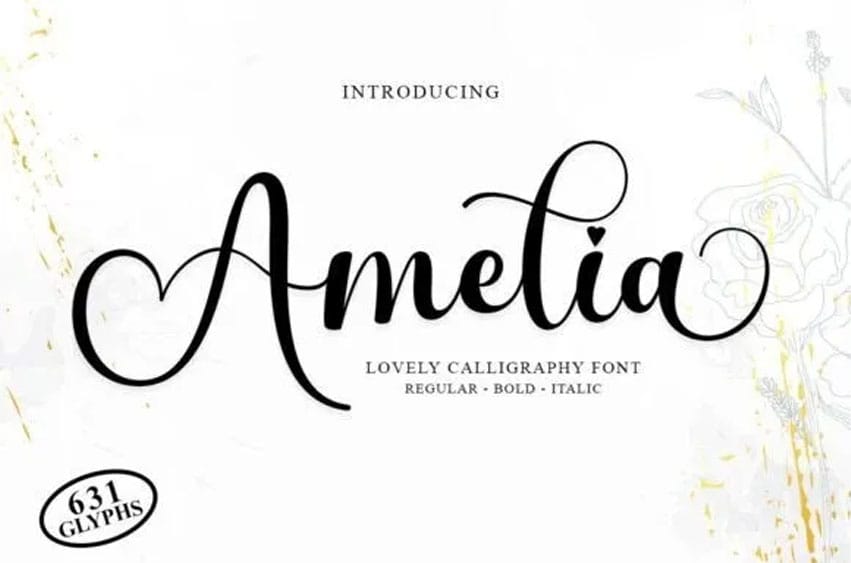
Amelia Lovely Font is a new modern script font with an irregular baseline.
With its trendy and feminine style, Amelia Script looks beautiful on wedding invitations, thank you cards, quotes, greeting cards, logos, business cards, and more. Includes beginning and end letters, alternatives, and support for many languages.